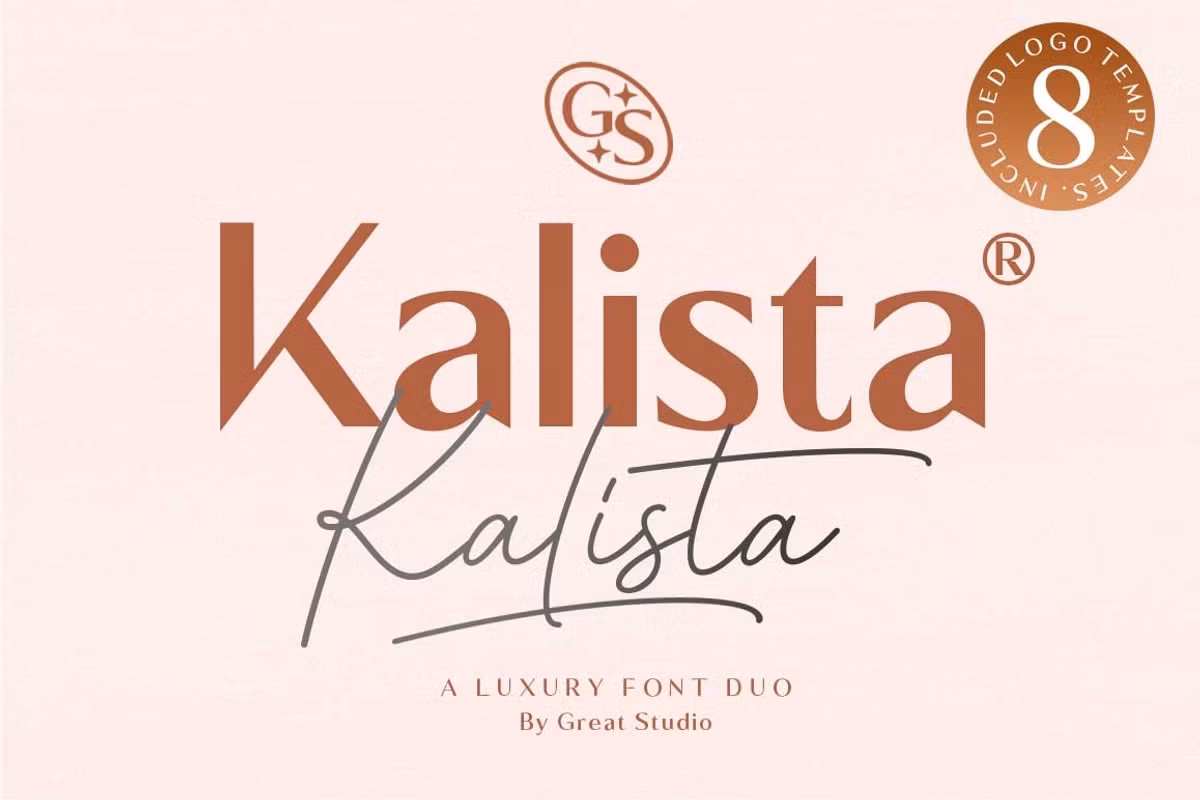
Kalista Font Duo + Logo Free Download
Kalista Font Duo + Logo Free Download is a stylish and versatile font duo designed to elevate your designs with elegance and clarity. The duo features a beautifully crafted script font paired with a clean, modern sans-serif, offering you the flexibility to create impactful logos, branding materials, invitations, and more. The script font adds a personal, artistic touch, while the sans-serif provides balance and readability. Additionally, this bundle includes a logo template to help you jumpstart your design process. Whether you're working on a luxury brand, a creative campaign, or a personal project, Kalista Font Duo + Logo Free Download lets you experiment with both fonts and the logo template in personal projects before purchasing a commercial license. Add sophistication and creativity to your designs with this elegant font duo and logo.